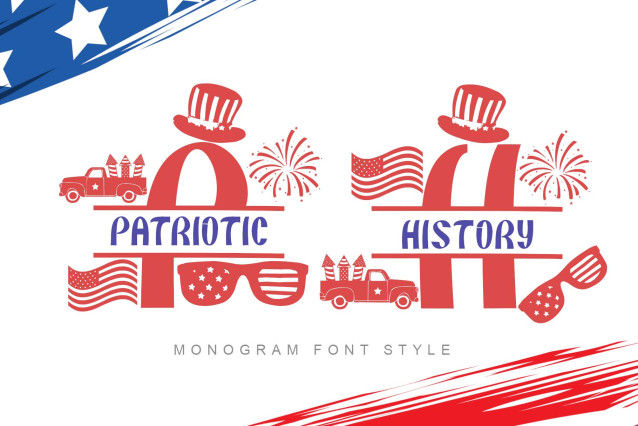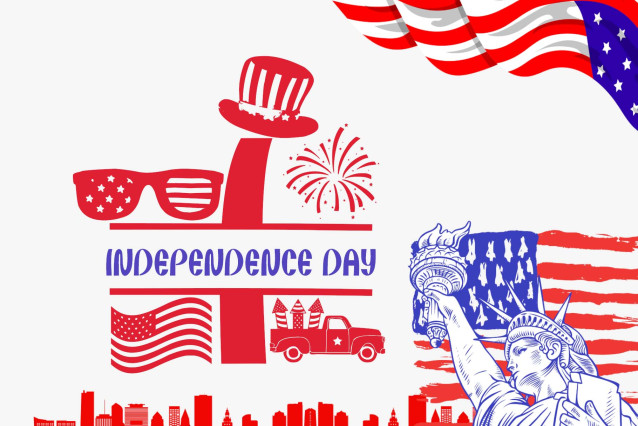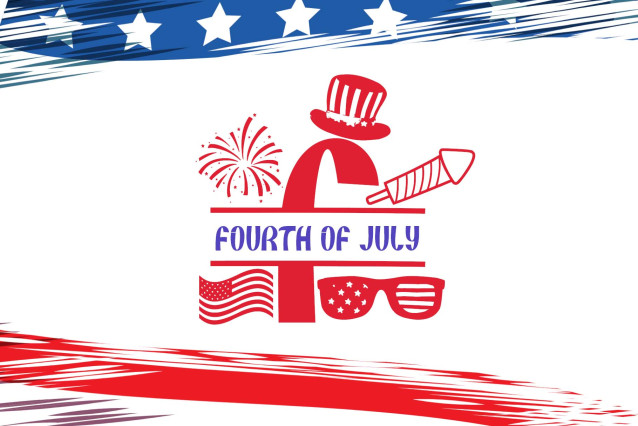
Patriotic History Font
Patriotic History is a bold and festive monogram font designed to capture the spirit of American pride and celebration. Adorned with iconic elements like Uncle Sam hats, flags, trucks, and fireworks, this font is ideal for Fourth of July designs, patriotic apparel, vintage truck graphics, and historical event branding. Its all-American charm makes it a standout for holiday crafts, party decor, and printables.